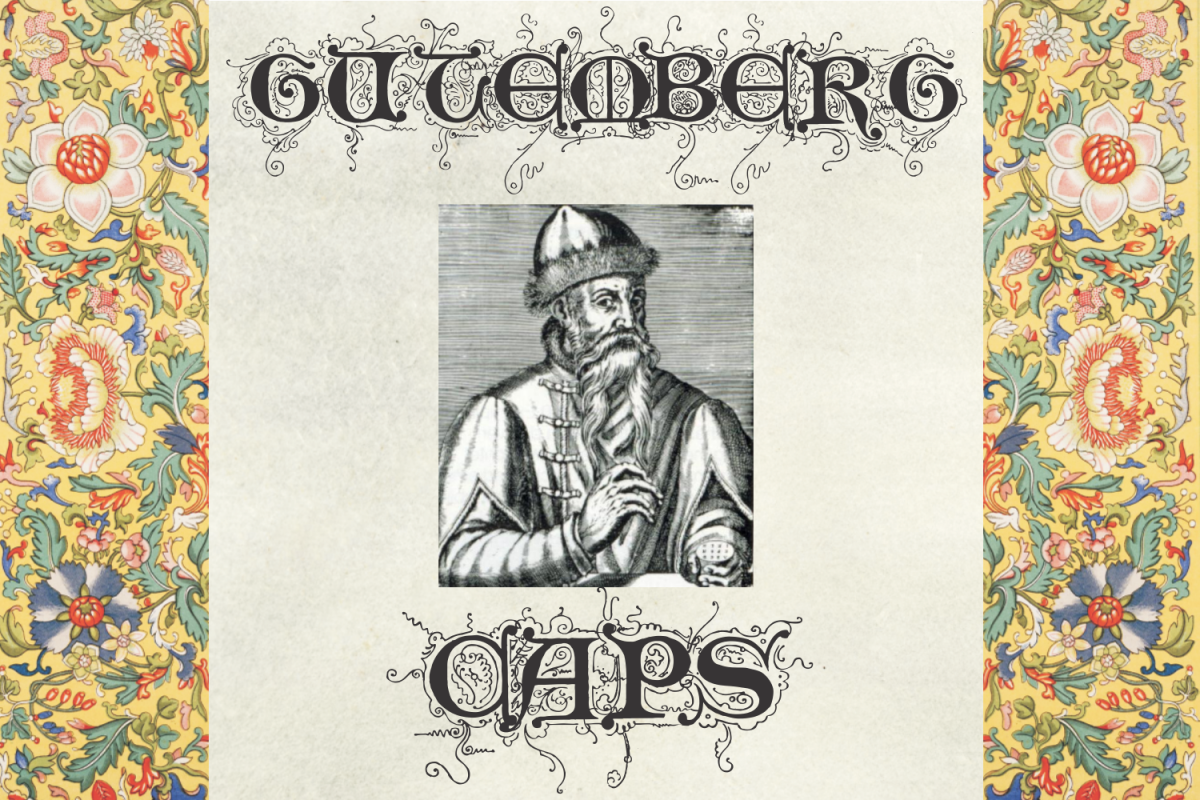
A decorative lombardic fonty. combine with Psalter Gotisch (a classic blackletter type) to create authentich medieval documents : https://fontbundles.net/intellecta-design/83296-psalter-gotisch